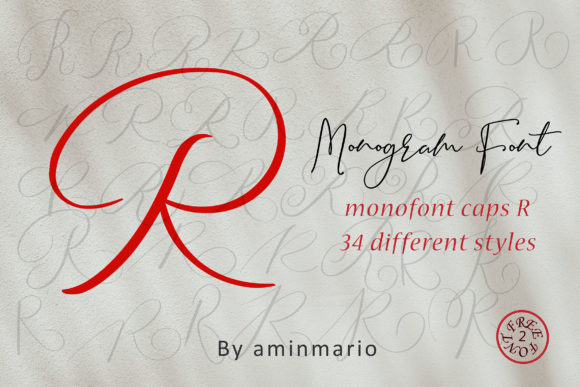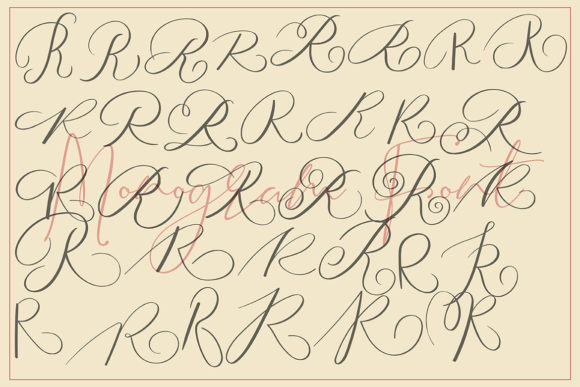
Monogram R | Monofont Caps R Font
About Monogram R | Monofont Caps R Font
This MONOGRAM is natural handwriting of capital R with 36 different styles.
This is not for writing words or sentences, but for monograms. Bonus 2 Font that contains the uppercase and lowercase to support it.